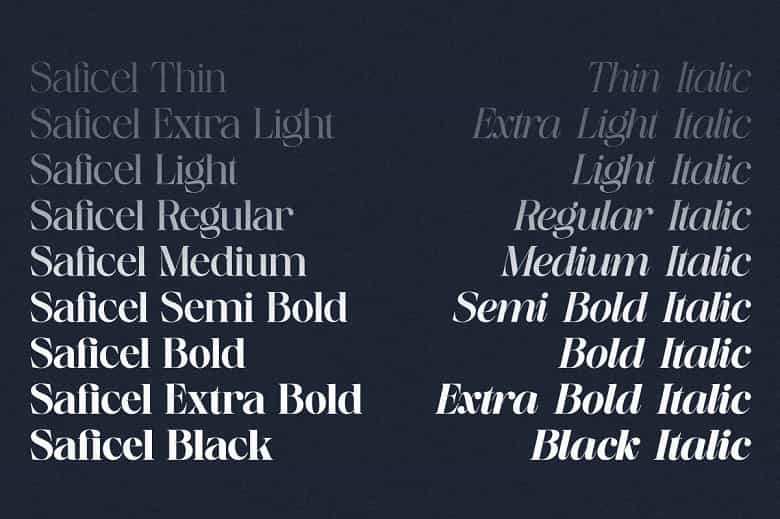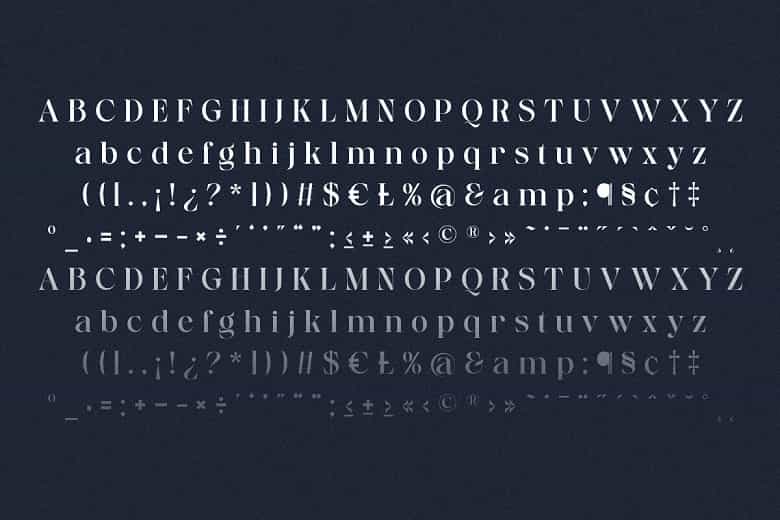
Saficel is an elegant serif font. Available in Thin to Black style (“Thin to Black”) with Regular and Italic styles, it demonstrates its versatility. Its design is quite elegant and modern which will give a professional touch to any design that you want to create.